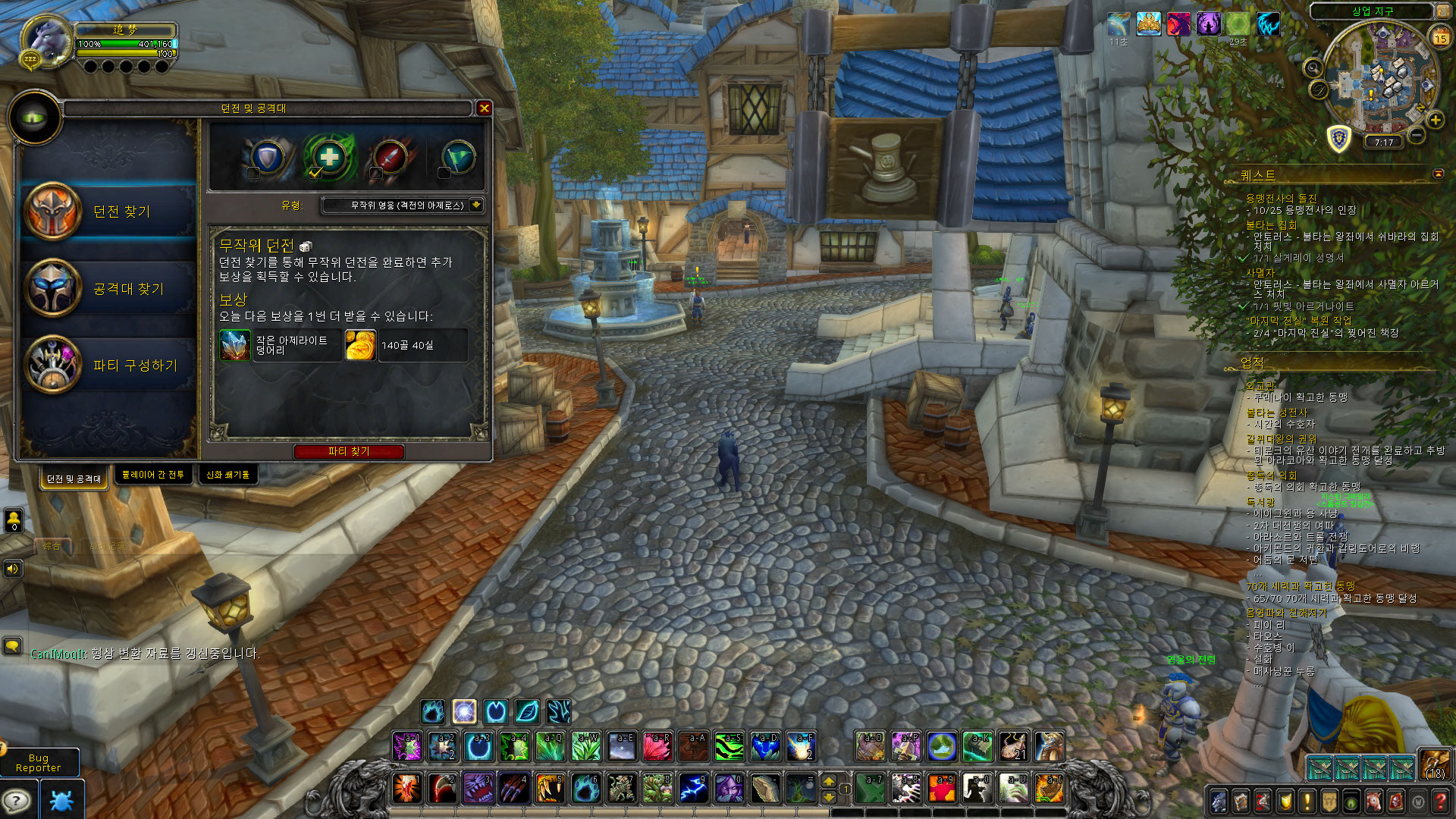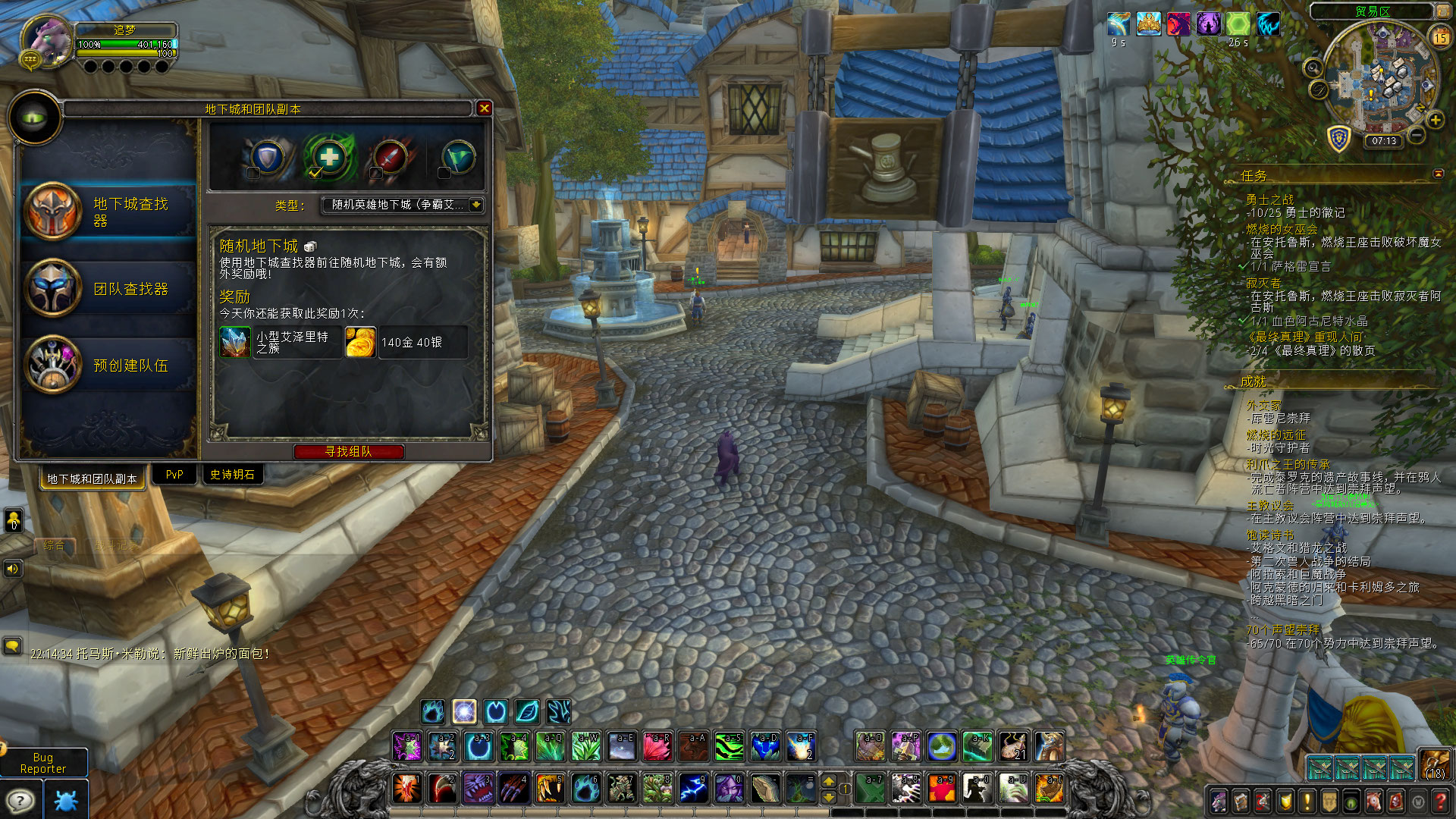
Unified pixel font for all client languages. TrueType outlines with gridfits.
Unified pixel font for all client languages.
⚠️ Experimental font technology
The fonts are neither bitmap fonts nor have embedded bitmaps. Instead, they are OpenType/TT outline fonts built with auto hinting technology, which adjusts outlines of glyphs to fit into the pixel grids.
As a result of automated grid fitting, some glyphs may look weird, or even broken.
Compatibility
• WoW’s default UI: ✔ (except world text, unit name and damage text)
• Addons that use built-in font objects: ✔ (e.g. obj:SetFontObject(GameFontNormal))
• Addons that use LibSharedMedia’s font storage: Partial (select “Pixel Font - Default” or “Pixel Font - Chat”, and enable monochrome mode)
• Addons that use standard fonts: ✘ (e.g. obj:SetFont(STANDARD_TEXT_FONT, size))
• Addons that have hard-coded font: ✘ (e.g. obj:SetFont([[Fonts\FRIZQT__.ttf]], size))